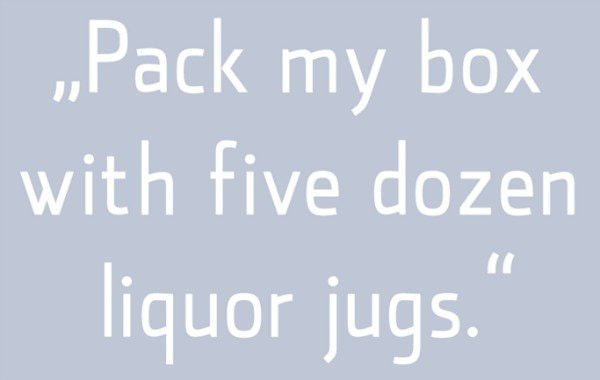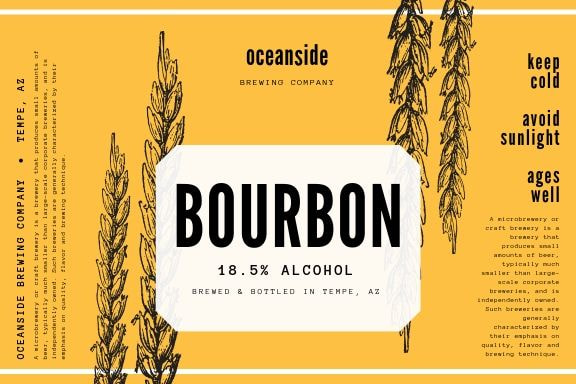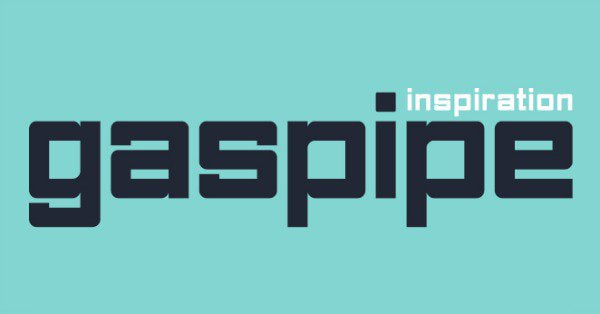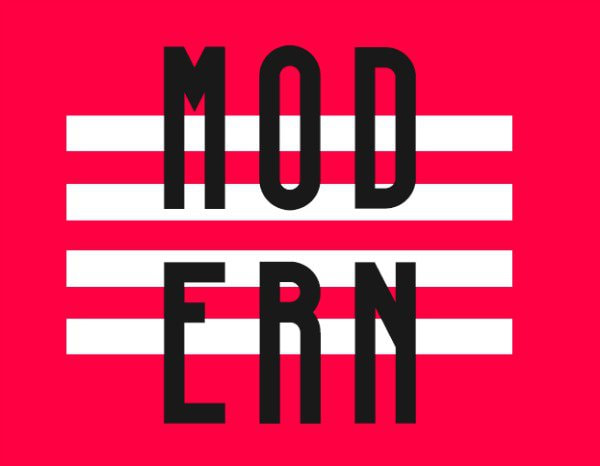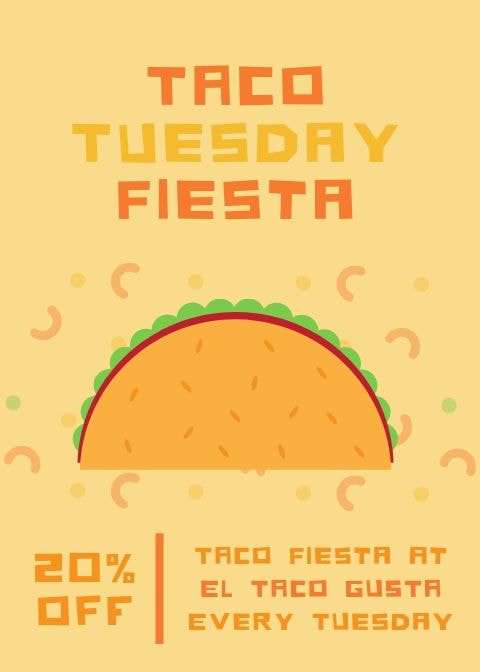
15+ Sans Serif Font Excel SVG File. Download the best sans serif fonts from the web that are robust, gorgeously designed and perfect for any design project. A brand new serif with a bonus sans for. Google fonts now supports variable fonts. Browse by alphabetical listing, by style, by author or by popularity. The best selection of sans serif fonts for windows and macintosh. It was designed to be metrically compatible with the ms sans bitmap font that shipped in early versions of microsoft windows. Download 10,000 fonts with one click for $19.95. Microsoft sans serif font is a very legible user interface (ui) font. The most common examples are arial and helvetica. Licensed for personal and commercial use. Archive of freely downloadable fonts. Bonange basic serif font is a bold and elegant serif font. Available for personal & commercial. 117 downloads free for personal use. This font is equipped with uppercase, lowercase, numbers, punctuation, and several variations on each character.
Available for personal & commercial. Sans serif fonts are popular, and give your design a modern look. Каллиграфические и скриптовые шрифты с кириллицей. Obrazec industrial sans serif font. Sans serif fonts, as you might already know, are the fonts with no projecting lines at the ends. They were seen as more modern, and more informal than the usual fonts with serifs that we still see in print and screens. A brand new serif with a bonus sans for.
They started being widely used during the 1920s bauhaus movement. 117 downloads free for personal use. Sans serif fonts, as you might already know, are the fonts with no projecting lines at the ends. Archive of freely downloadable fonts. Licensed for personal and commercial use. Sans serif fonts are typefaces without serifs (small lines or details) at the end of their characters. The best selection of sans serif fonts for windows and macintosh. Download the best sans serif fonts from the web that are robust, gorgeously designed and perfect for any design project. Due to copyright issues, this font has been removed. This font is equipped with uppercase, lowercase, numbers, punctuation, and several variations on each character. Microsoft sans serif font is a very legible user interface (ui) font. Sans serif fonts are popular, and give your design a modern look. Microsoft sans serif regular font.ttf. Available for personal & commercial. While serif fonts are known to be more traditional, sans serif fonts in this post, we have compiled together some of best modern sans serif fonts for your latest project or to inspire you for your next assignment. It was designed to be metrically compatible with the ms sans bitmap font that shipped in early versions of microsoft windows. Google fonts now supports variable fonts. They started being widely used during the 1920s bauhaus movement. Bonange basic serif font is a bold and elegant serif font. Microsoft sans serif regular font.ttf. They were seen as more modern, and more informal than the usual fonts with serifs that we still see in print and screens. Каллиграфические и скриптовые шрифты с кириллицей. Sans serif fonts, then, are the ones that don't have these ornamental lines in them. The most common examples are arial and helvetica. A brand new serif with a bonus sans for. Browse by alphabetical listing, by style, by author or by popularity. Obrazec industrial sans serif font. A wealth of free sans serif fonts to find typography for websites, presentations, interfaces, print projects, and documents. Download 10,000 fonts with one click for $19.95.
Pin Di Sans Serif Fonts. Browse by alphabetical listing, by style, by author or by popularity. It was designed to be metrically compatible with the ms sans bitmap font that shipped in early versions of microsoft windows. Download the best sans serif fonts from the web that are robust, gorgeously designed and perfect for any design project. 117 downloads free for personal use. The best selection of sans serif fonts for windows and macintosh. Google fonts now supports variable fonts. Licensed for personal and commercial use. A brand new serif with a bonus sans for. The most common examples are arial and helvetica. Microsoft sans serif font is a very legible user interface (ui) font. Download 10,000 fonts with one click for $19.95. Available for personal & commercial. This font is equipped with uppercase, lowercase, numbers, punctuation, and several variations on each character. Bonange basic serif font is a bold and elegant serif font. Archive of freely downloadable fonts.
60 Free Sans Serif Fonts To Give Your Designs A Modern Touch. 117 downloads free for personal use. A brand new serif with a bonus sans for. Microsoft sans serif font is a very legible user interface (ui) font. This font is equipped with uppercase, lowercase, numbers, punctuation, and several variations on each character. Browse by alphabetical listing, by style, by author or by popularity. It was designed to be metrically compatible with the ms sans bitmap font that shipped in early versions of microsoft windows. Google fonts now supports variable fonts. Licensed for personal and commercial use. Bonange basic serif font is a bold and elegant serif font. Archive of freely downloadable fonts. Available for personal & commercial. The most common examples are arial and helvetica. Download 10,000 fonts with one click for $19.95. Download the best sans serif fonts from the web that are robust, gorgeously designed and perfect for any design project. The best selection of sans serif fonts for windows and macintosh.
This font is equipped with uppercase, lowercase, numbers, punctuation, and several variations on each character.
97 Modern Sans Serif Fonts That Are Perfect For Brands Creativetacos. Google fonts now supports variable fonts. Available for personal & commercial. Microsoft sans serif font is a very legible user interface (ui) font. Browse by alphabetical listing, by style, by author or by popularity. This font is equipped with uppercase, lowercase, numbers, punctuation, and several variations on each character. A brand new serif with a bonus sans for. Bonange basic serif font is a bold and elegant serif font. Licensed for personal and commercial use. Archive of freely downloadable fonts. The most common examples are arial and helvetica. The best selection of sans serif fonts for windows and macintosh. Download 10,000 fonts with one click for $19.95. It was designed to be metrically compatible with the ms sans bitmap font that shipped in early versions of microsoft windows. 117 downloads free for personal use. Download the best sans serif fonts from the web that are robust, gorgeously designed and perfect for any design project.
60 Free Sans Serif Fonts To Give Your Designs A Modern Touch. Bonange basic serif font is a bold and elegant serif font. Google fonts now supports variable fonts. Microsoft sans serif font is a very legible user interface (ui) font. Browse by alphabetical listing, by style, by author or by popularity. 117 downloads free for personal use. It was designed to be metrically compatible with the ms sans bitmap font that shipped in early versions of microsoft windows. Download 10,000 fonts with one click for $19.95. This font is equipped with uppercase, lowercase, numbers, punctuation, and several variations on each character. Licensed for personal and commercial use. The best selection of sans serif fonts for windows and macintosh. The most common examples are arial and helvetica. A brand new serif with a bonus sans for. Archive of freely downloadable fonts. Available for personal & commercial. Download the best sans serif fonts from the web that are robust, gorgeously designed and perfect for any design project.
97 Modern Sans Serif Fonts That Are Perfect For Brands Creativetacos. Browse by alphabetical listing, by style, by author or by popularity. Available for personal & commercial. Download the best sans serif fonts from the web that are robust, gorgeously designed and perfect for any design project. This font is equipped with uppercase, lowercase, numbers, punctuation, and several variations on each character. A brand new serif with a bonus sans for. Licensed for personal and commercial use. 117 downloads free for personal use. Download 10,000 fonts with one click for $19.95. It was designed to be metrically compatible with the ms sans bitmap font that shipped in early versions of microsoft windows. Bonange basic serif font is a bold and elegant serif font. Google fonts now supports variable fonts. The most common examples are arial and helvetica. The best selection of sans serif fonts for windows and macintosh. Archive of freely downloadable fonts. Microsoft sans serif font is a very legible user interface (ui) font.
It was designed to be metrically compatible with the ms sans bitmap font that shipped in early versions of microsoft windows.
The best selection of sans serif fonts for windows and macintosh. Microsoft sans serif font is a very legible user interface (ui) font. Obrazec industrial sans serif font. Download the best sans serif fonts from the web that are robust, gorgeously designed and perfect for any design project. Microsoft sans serif regular font.ttf. Sans serif fonts, then, are the ones that don't have these ornamental lines in them. Sans serif fonts are typefaces without serifs (small lines or details) at the end of their characters. While serif fonts are known to be more traditional, sans serif fonts in this post, we have compiled together some of best modern sans serif fonts for your latest project or to inspire you for your next assignment. This font is equipped with uppercase, lowercase, numbers, punctuation, and several variations on each character. Licensed for personal and commercial use.